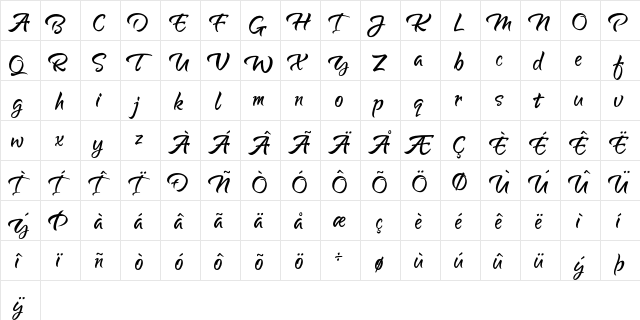
Rosttel Clean Regular
| Foundry | Malindo Creative |
| Designer | Maryanti |
Design Context for Rosttel Clean Typeface
Rosttel Clean is a composed and adaptable typeface that performs quietly and consistently across a wide range of design contexts.